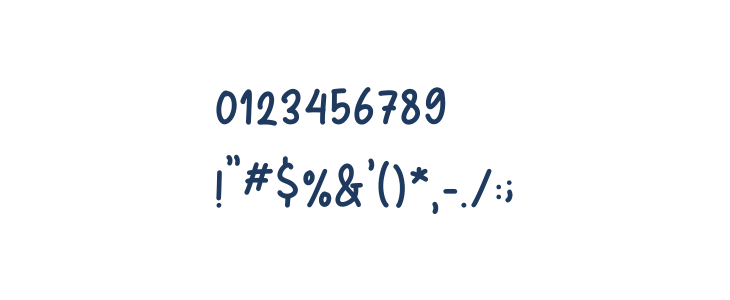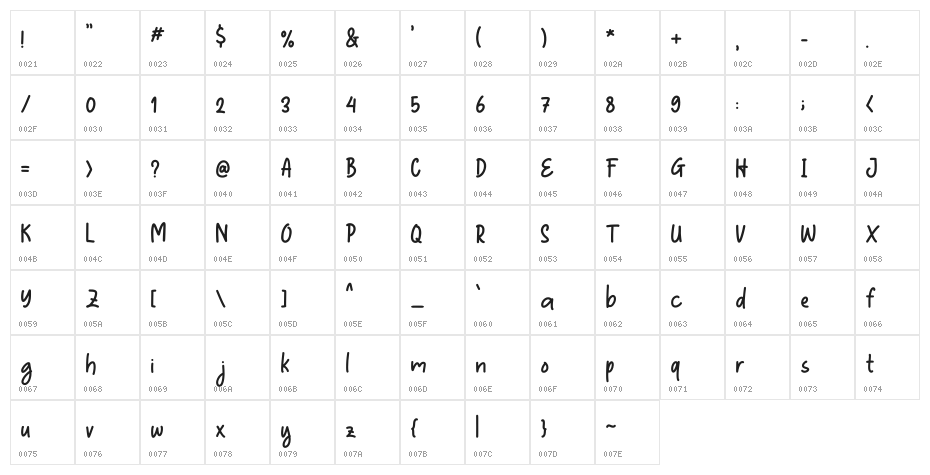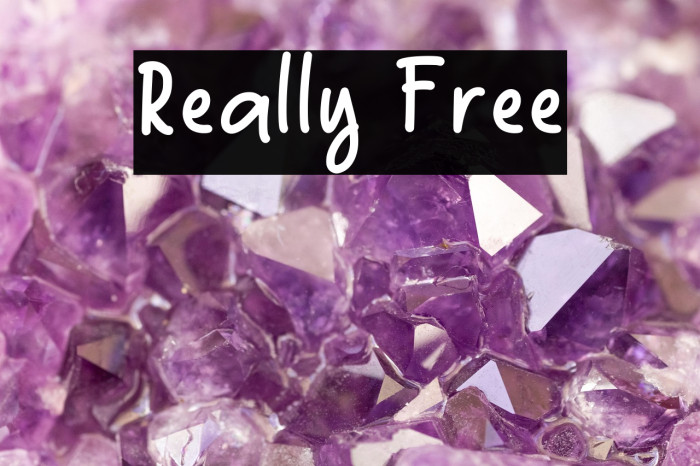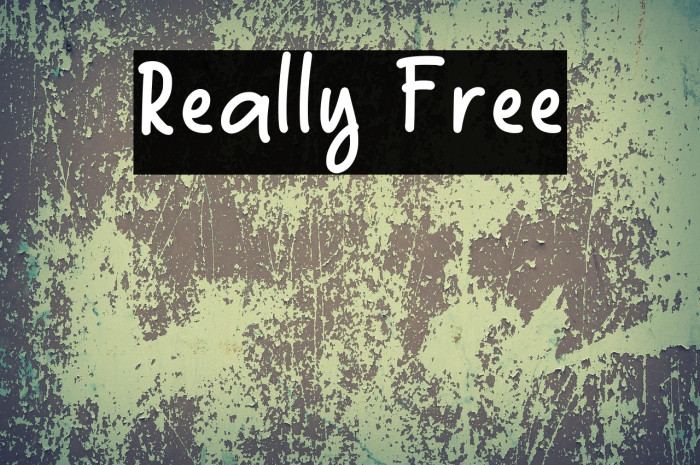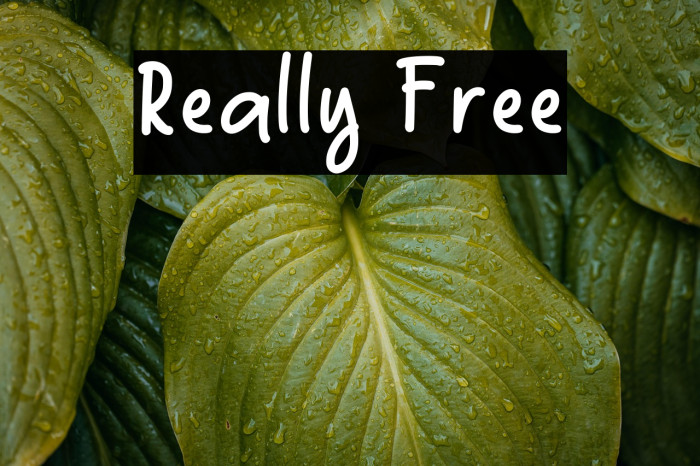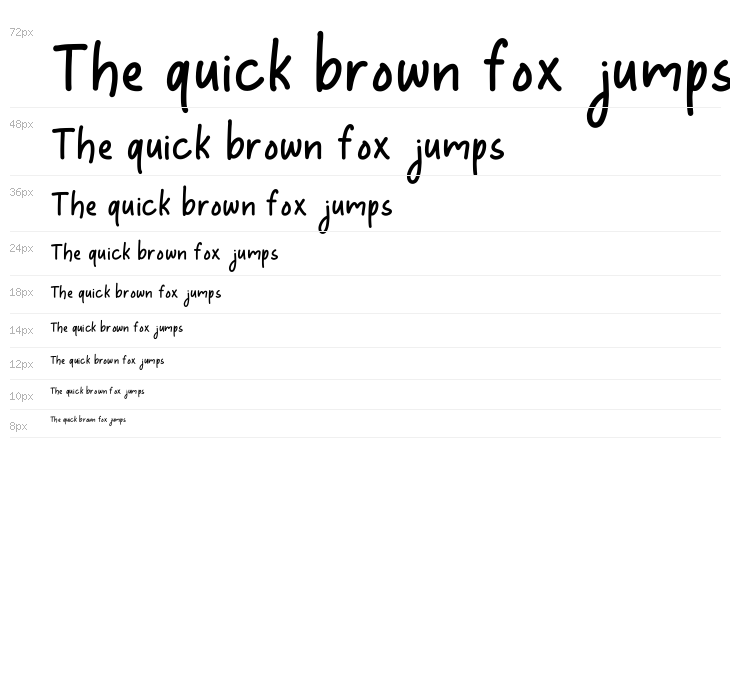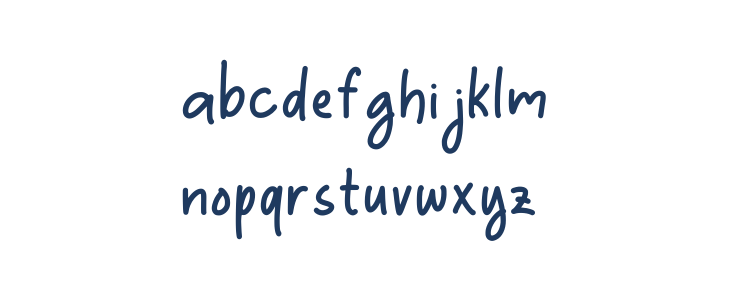
Really Free Font
Really Free Description
This font features a playful and casual handwritten style, characterized by its smooth curves and slightly irregular strokes. The letters are bold and rounded, giving a friendly and approachable appearance. The uppercase and lowercase letters maintain a consistent flow, while the numbers and special characters complement the overall style. Its informal nature makes it ideal for projects that require a personal touch or a relaxed vibe. The font's legibility is enhanced by its clear and distinct character shapes, making it suitable for various design applications.
Overall StyleCasual
Use CaseHeadlines, Logos, Informal Text
Proposed ProjectsIdeal for greeting cards, children's books, casual branding, and social media graphics.